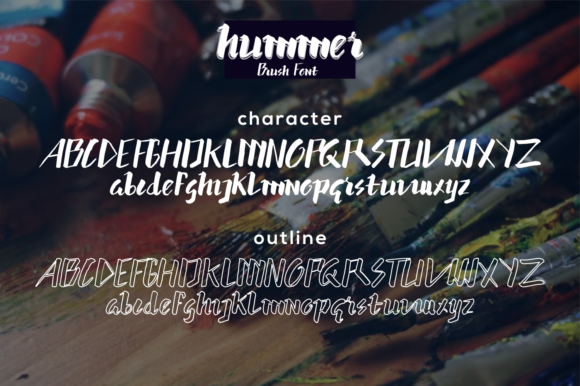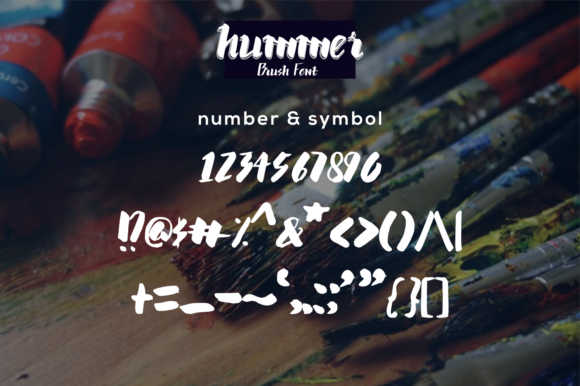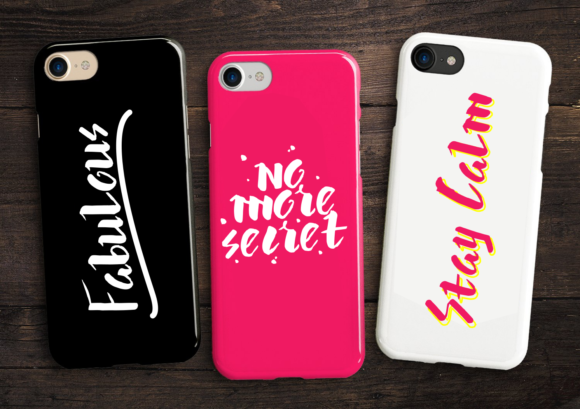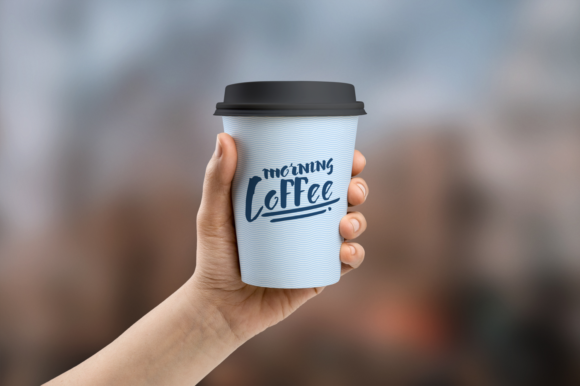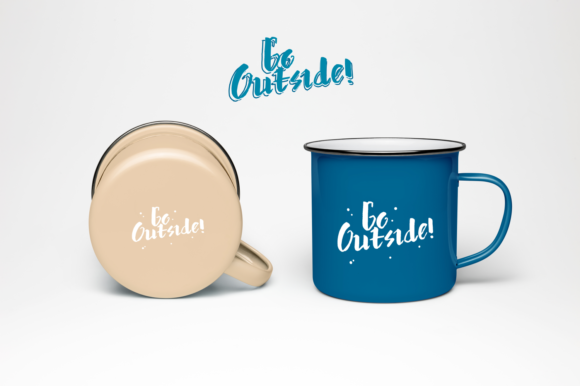
Hummer Font
About Hummer Font
Be different and unique, just like the ‘Hammer’. This brush style font comes in 4 styles which can be combined perfectly, allowing you to create multiple unique designs with just this one download. It’s great readability and unique styles give you the opportunity to create amazing designs in an instant.